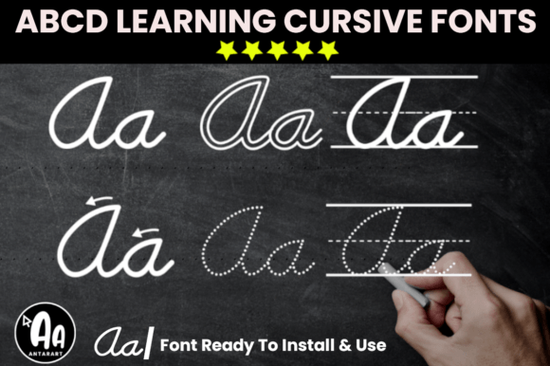
Creating educational materials at home or for a small business does not require expensive software or hiring a professional illustrator. If you want to design custom handwriting practice sheets, the Abcd Cursive Handwriting Tracing Bundle Font gives you a practical way to generate thousands of tracing worksheets using the tools you already own. These handwritten typefaces are built specifically for teaching penmanship, making them highly useful for parents, teachers, and print-on-demand sellers looking to create engaging learning resources.
How do you make cursive tracing worksheets with custom fonts?
The process is straightforward and saves hours of manual drawing. You simply type your desired words, sentences, or spelling lists into your favorite word processor or design program. Then, apply the tracing typeface. The letters instantly appear as dashed or outlined shapes, ready for students to trace with a pencil. This is incredibly helpful for crafters making personalized learning binders or small business owners creating digital downloads.
What is the D’Nealian method and why does it matter?
When teaching kids to write, consistency is crucial for their muscle memory. This specific bundle is based on the D'Nealian method, a widely recognized handwriting style taught in many schools across the country. It features slight slants and specific tail strokes that help children transition smoothly from basic printing to fluid cursive. By using a font that follows these established educational standards, you ensure the practice sheets you create are actually helpful for early learners rather than just visually pleasing.
Can you use handwriting fonts for commercial print-on-demand products?
Educational workbooks, printable flashcards, and homeschooling curriculums are very popular in the print-on-demand and digital download markets. When designing a workbook cover or a greeting card for a child, you might want to pair your tracing text with a more decorative style to catch the buyer's eye. For instance, adding a playful touch with a sunshine flower style typeface can make the cover stand out on a busy marketplace like Etsy.
Small business owners selling physical workbooks often mix and match styles to create a cohesive product. You could use the tracing font for the interior practice pages, while using a sweet baby inspired script for the title page to give it a soft, nursery-friendly feel. If you are designing certificates of completion to include at the back of your workbook, a clean baseliner style lettering works perfectly for printing the student's name.
- PowerPoint: Surprisingly effective for creating printable flashcards and slide-based learning games.
For those building a recognizable brand for their educational store, you might want to use a modern milestone style font for your shop banners and social media graphics. Keeping your store's visual identity consistent helps build trust with parents and teachers. Additionally, incorporating a flowing camila ashton style script into your thank-you notes or digital download instruction sheets adds a nice personal touch to your overall customer experience.
What should you check before publishing your first worksheet?
Before you upload your new printable to your online store or hand it to a student, run through this quick quality check to ensure a smooth user experience:
- Verify the line height gives enough physical room for a child's hand to move comfortably without smudging the ink.
- Check that the dashed lines are dark enough to see clearly but light enough to trace over with a standard pencil.
- Ensure the spelling, grammar, and punctuation in your practice sentences are completely flawless.
- Test print a single page on your home printer to confirm the ink coverage and margins look correct on standard paper.